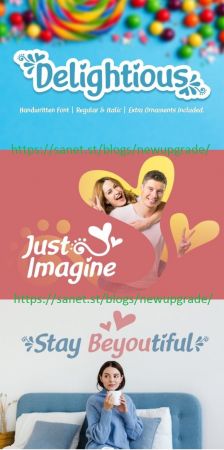
Delightious is a playful and versatile script that looks gorgeous in any design project. This versatility means that this font can be used in a wide variety of applications from greeting cards, headlines, to school crafts – the only limit is your imagination!
This font is PUA encoded which means you can access all of the magical glyphs and swashes with ease! It also features a wealth of special features including alternate glyphs and ligatures.